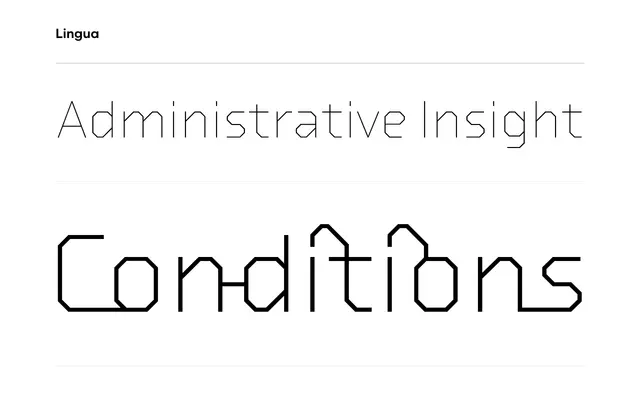
Lingua
Process Type Foundry · Eric Olson · 2003
A geometric sans by Eric Olson that transforms into a near-upright script when its extensive discretionary ligatures are switched on.
Released in 2003, Lingua comes in two weights and two styles, but its real character lies in what happens when you toggle its discretionary ligatures. Deactivated, the typeface reads as a clean, hard geometric sans; activated, the ligatures bind letterforms into something approaching an upright script. It is a rare example of a typeface with two genuinely distinct visual personalities governed by a single OpenType feature.
A hard geometric sans at its core, but defined by its extensive discretionary ligature system that transforms it into a near-upright script when activated, making it a highly unusual dual-natured design.